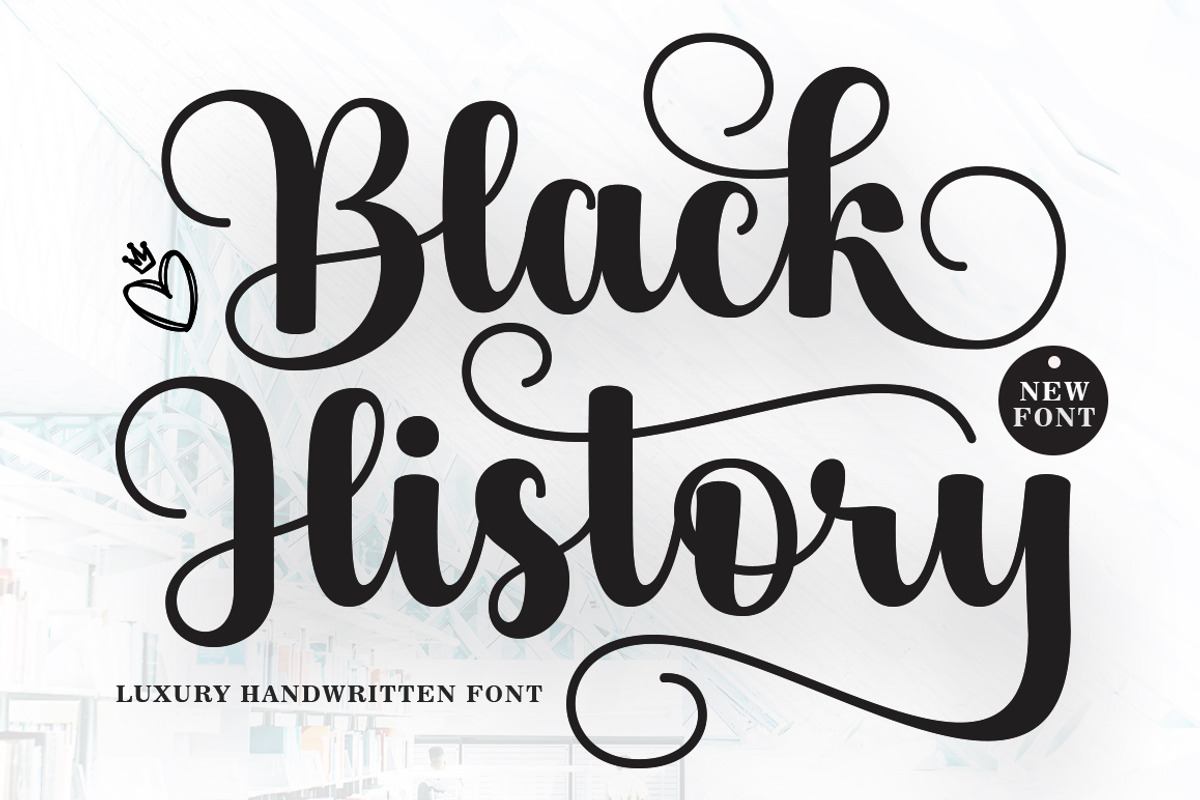
Black History Font Free Download is a bold and empowering display typeface inspired by cultural pride, strength, and historical legacy. Please note: you must purchase this font for commercial use, but you can test it through a free download. With its strong letterforms, impactful presence, and expressive character, Black History Font is perfect for event posters, awareness campaigns, educational materials, social media graphics, and apparel design.
This font is designed to honor heritage and amplify messages with clarity and power. Whether you're commemorating Black History Month or creating designs that speak to social justice and identity, Black History Font Free Download adds authenticity and weight to your work. Fully compatible with Adobe Illustrator, Photoshop, Canva, and more. Download it today for personal use and create meaningful, powerful designs that celebrate history and inspire the future.